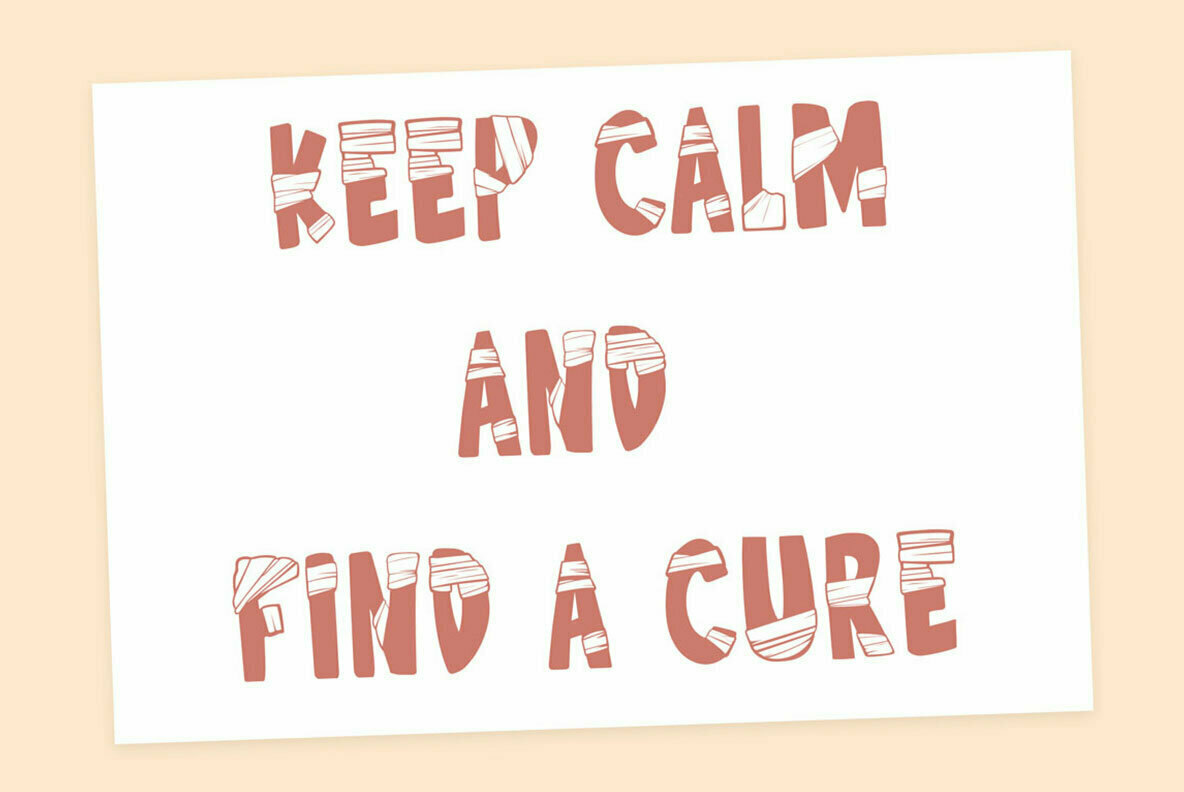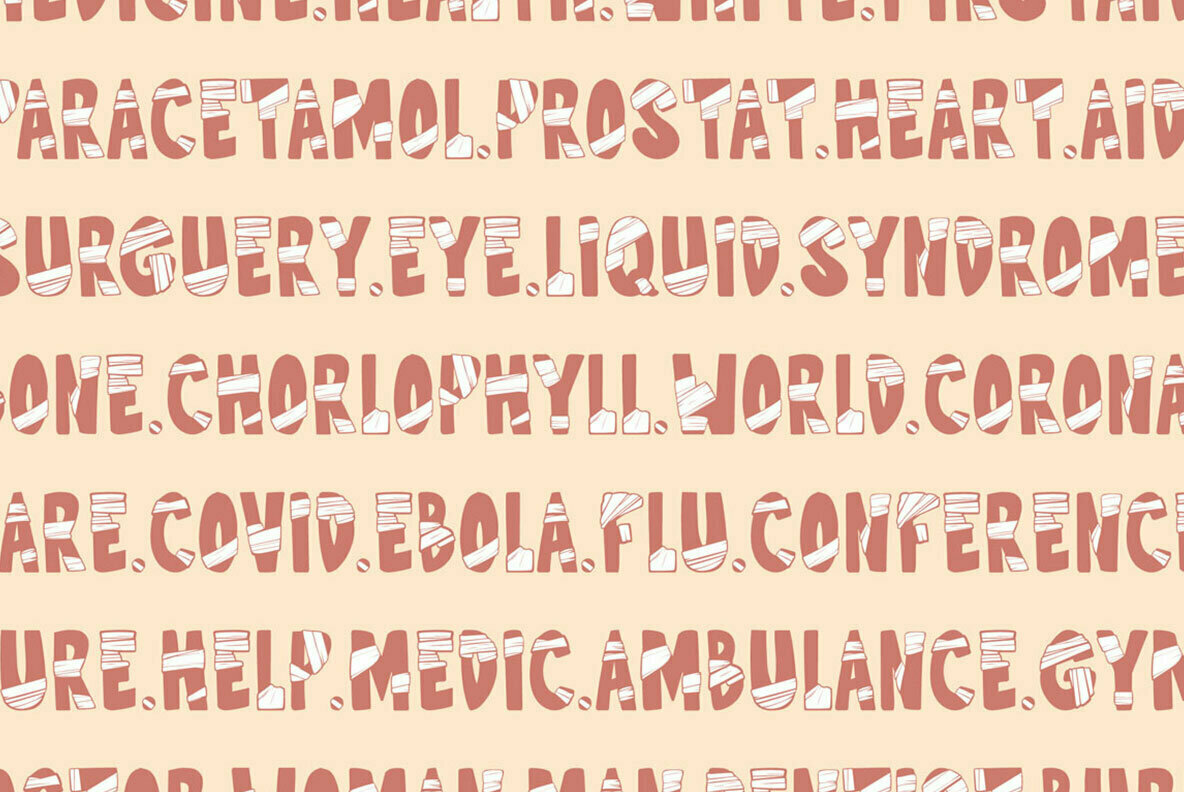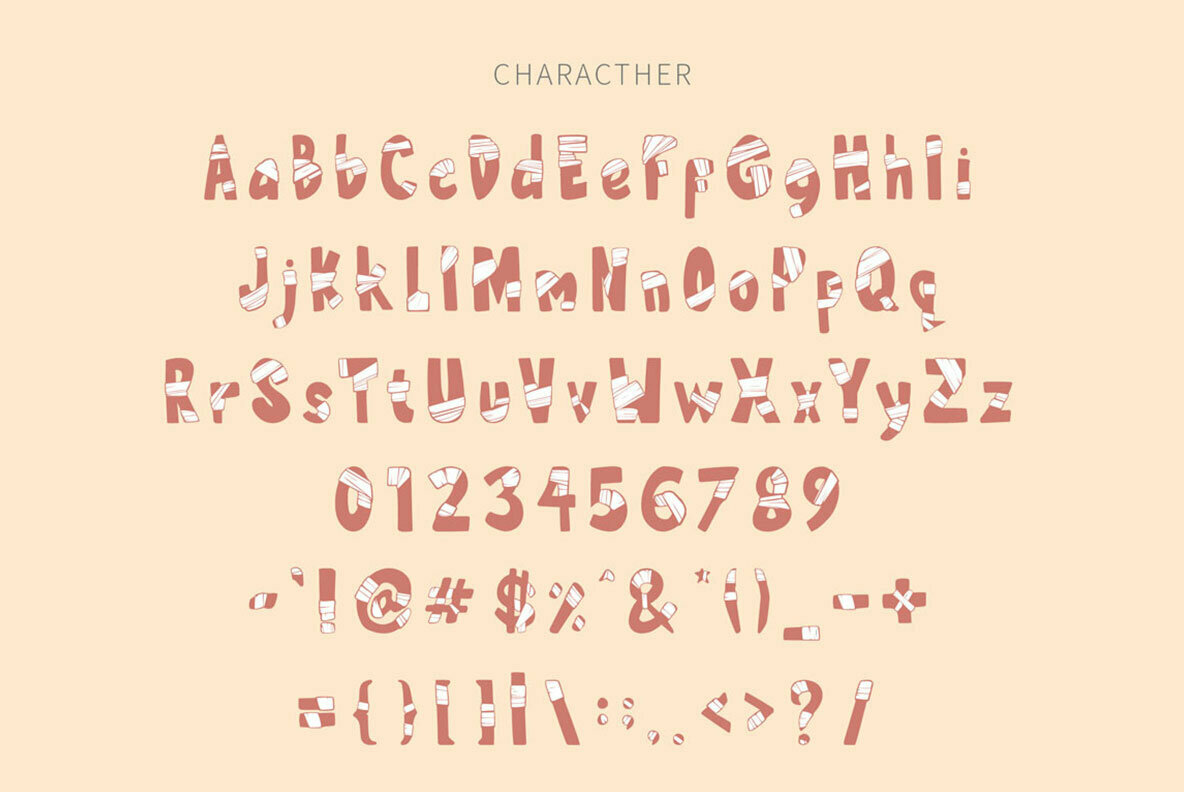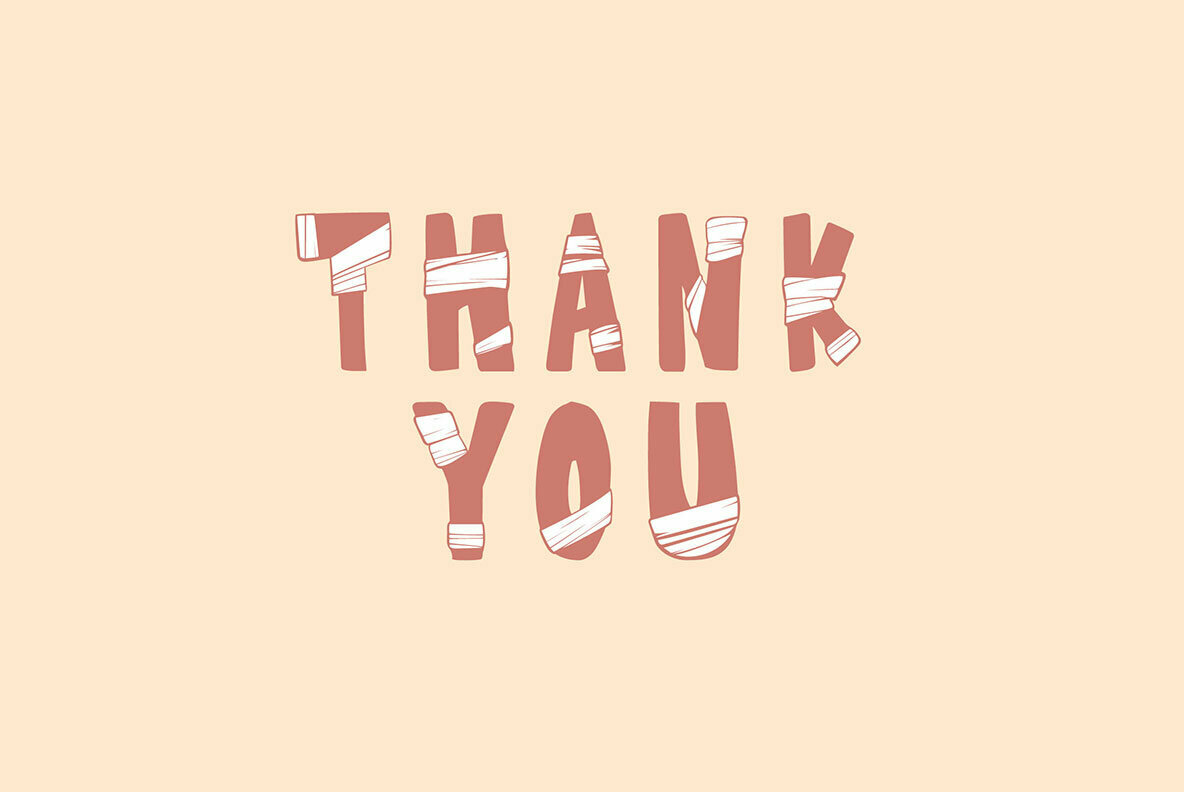
Verband Font
expand_font Verband Font Discover Verband Verband, the bold and playful Colour display font that adds a touch of whimsy to your professional design projects - from logos... SKU T12861 Bandage,Cartoon,Colour,Cream,Display,Fun,Funny,Kids,Open,Playfull,Verband Explore Exceptional Fonts for Digital and Traditional Media Fontpath offers a large variety of fonts for every designer, all at affordable prices and in multiple formats. Browse our best in class fonts today for all your creative needs, you can find everything you need right here at our site! Fonts,sans,sans serif,retro,script,decorative,title,FontPath 20140312040223 Fontpath offers 200,000+ of the most professional fonts found online, start downloading today! Real-Time Font Discovery at Fontpath